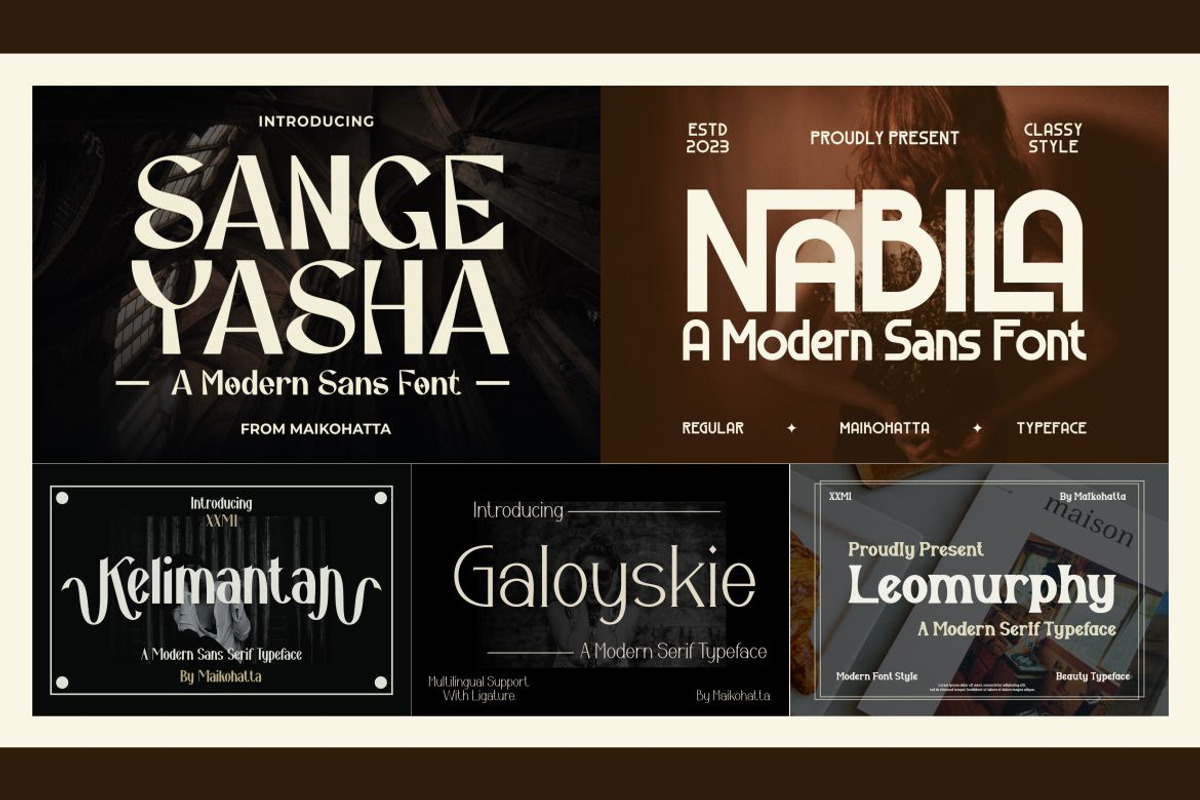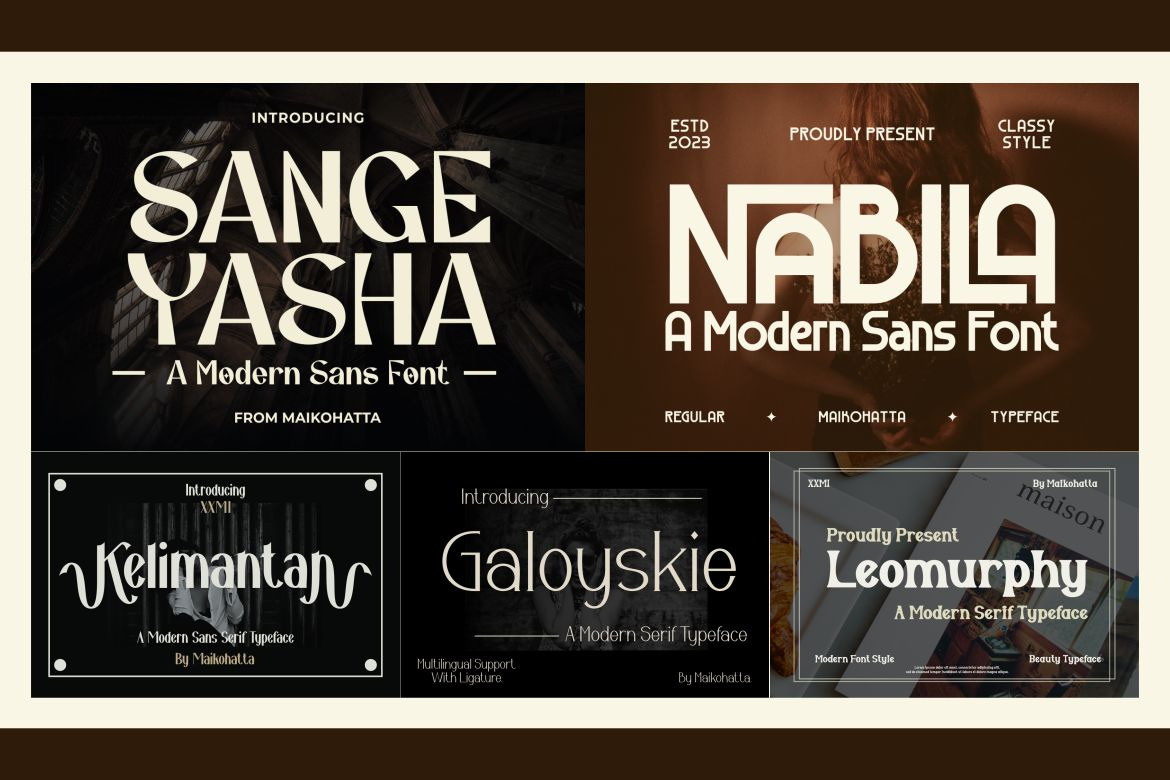
Elegant Beauty Font Bundle
Introducing our new product Elegant Beauty Font Bundle - Modern Font
Elegant Beauty Font Bundle - Modern Font is a bold and authentic display font. The font is suitable for any branding project like logo, template design, esport, and many more. outstanding in a wide range of contexts.
- Multilingual ( Galoyskie, Kelimantan, Nabila )
- Ligature ( Galoyskie, Nabila )